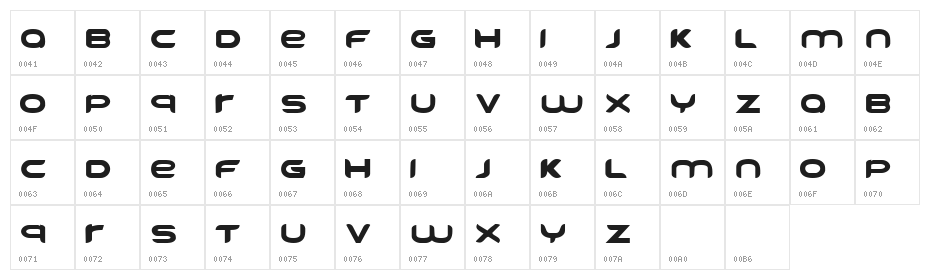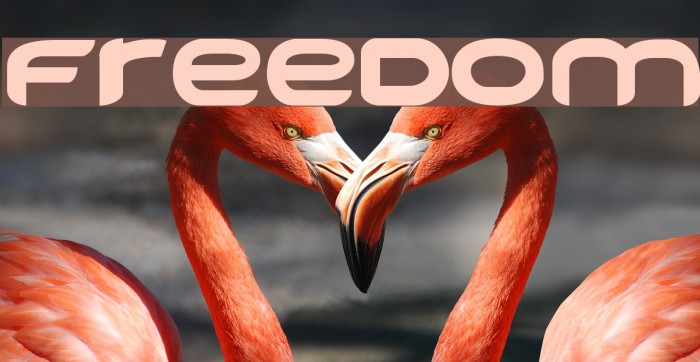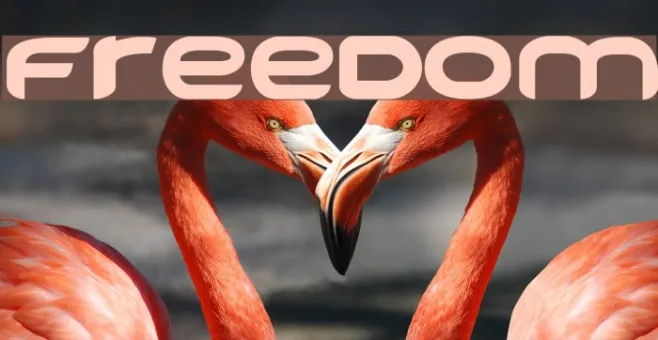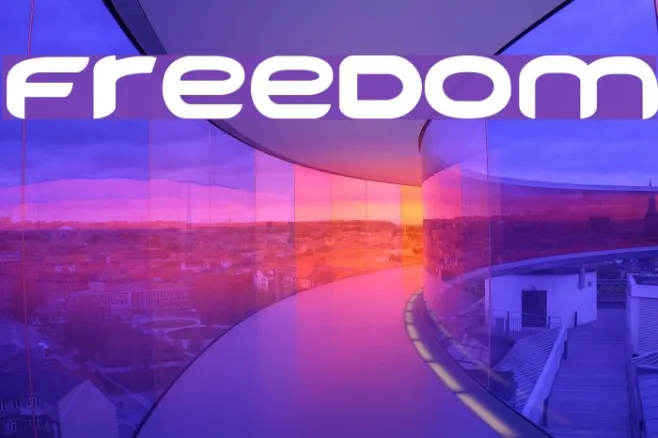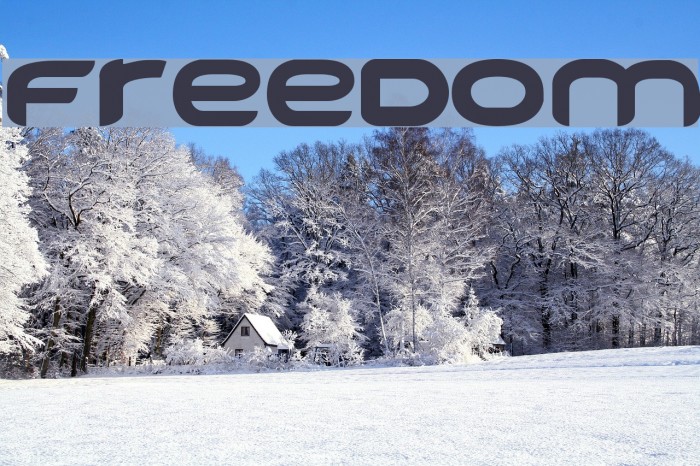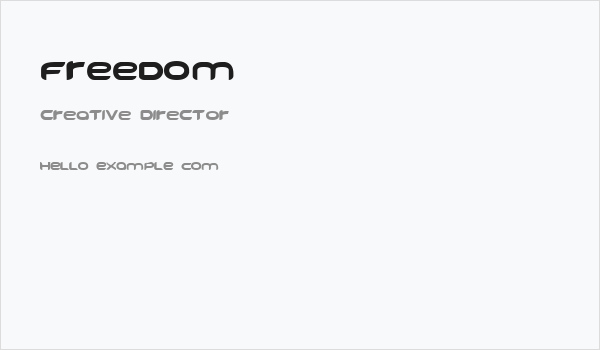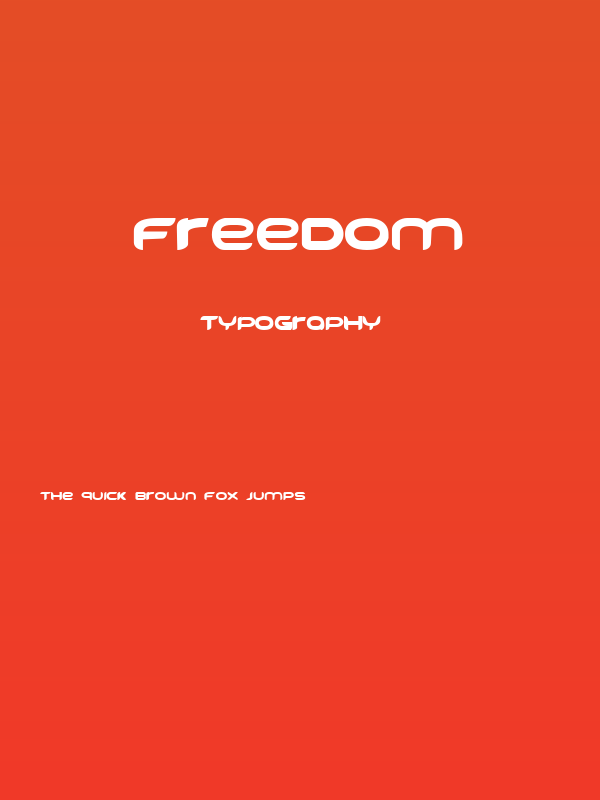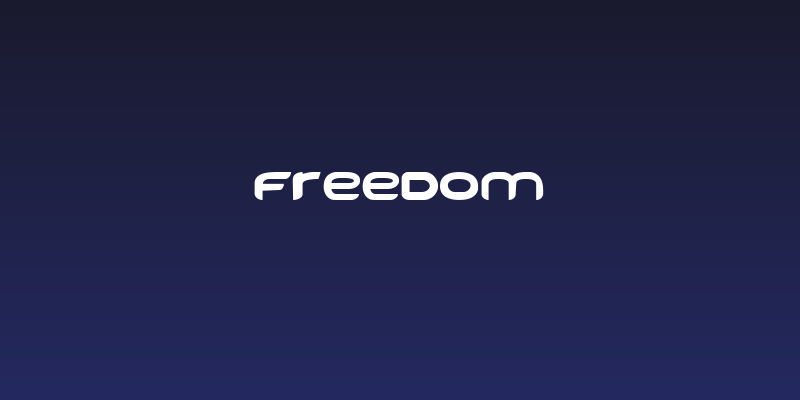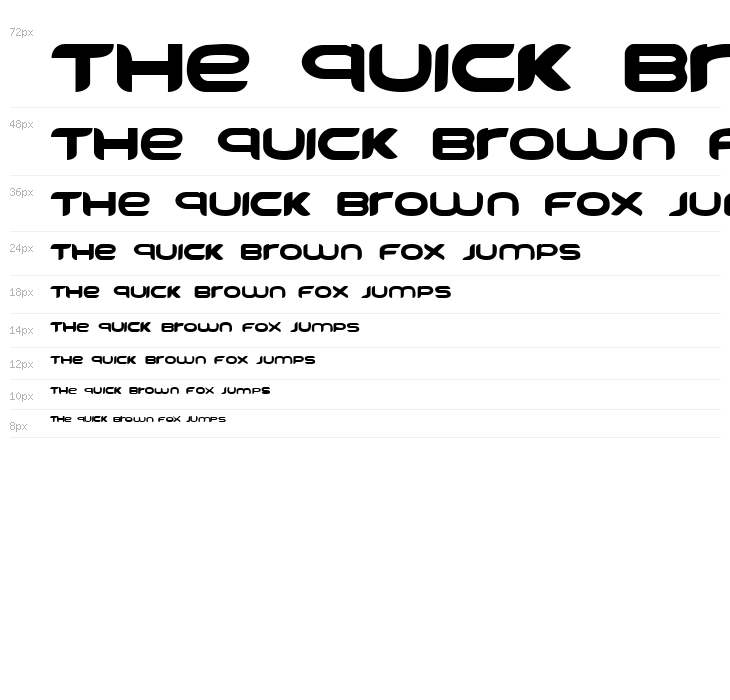
FREEDOM Font
FREEDOM Description
This font features a futuristic and geometric design, characterized by its bold and rounded letterforms. The uppercase and lowercase letters share a consistent style, with smooth curves and a uniform thickness that gives it a cohesive appearance. The font's unique aesthetic is achieved through its distinctive cutouts and angles, which add a modern and dynamic feel. The characters are well-spaced, ensuring readability while maintaining a compact look. This font is ideal for projects that require a contemporary and edgy vibe, making it suitable for technology-related branding, modern advertising, and innovative product packaging.